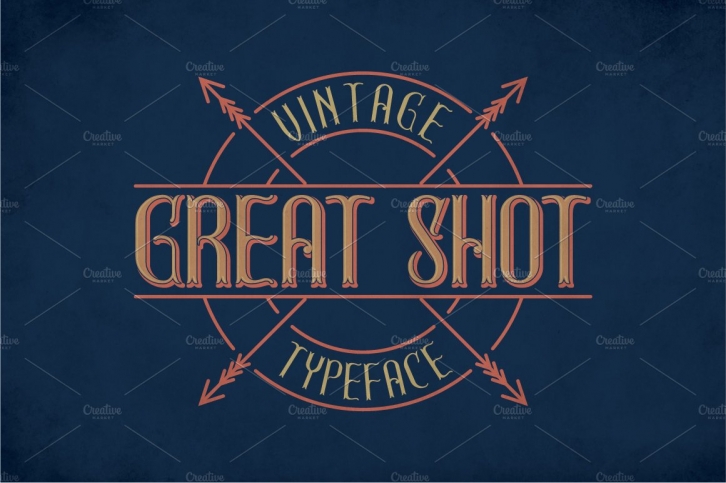
Introducing a vintage look label typeface named "Great shot". It's made in strong and vintage label style. Typeface is good viewed on any labels design.
- 5 fonts in complect (with special effects), plus aged version
- You can mix effects (look at 4-th screenshot)